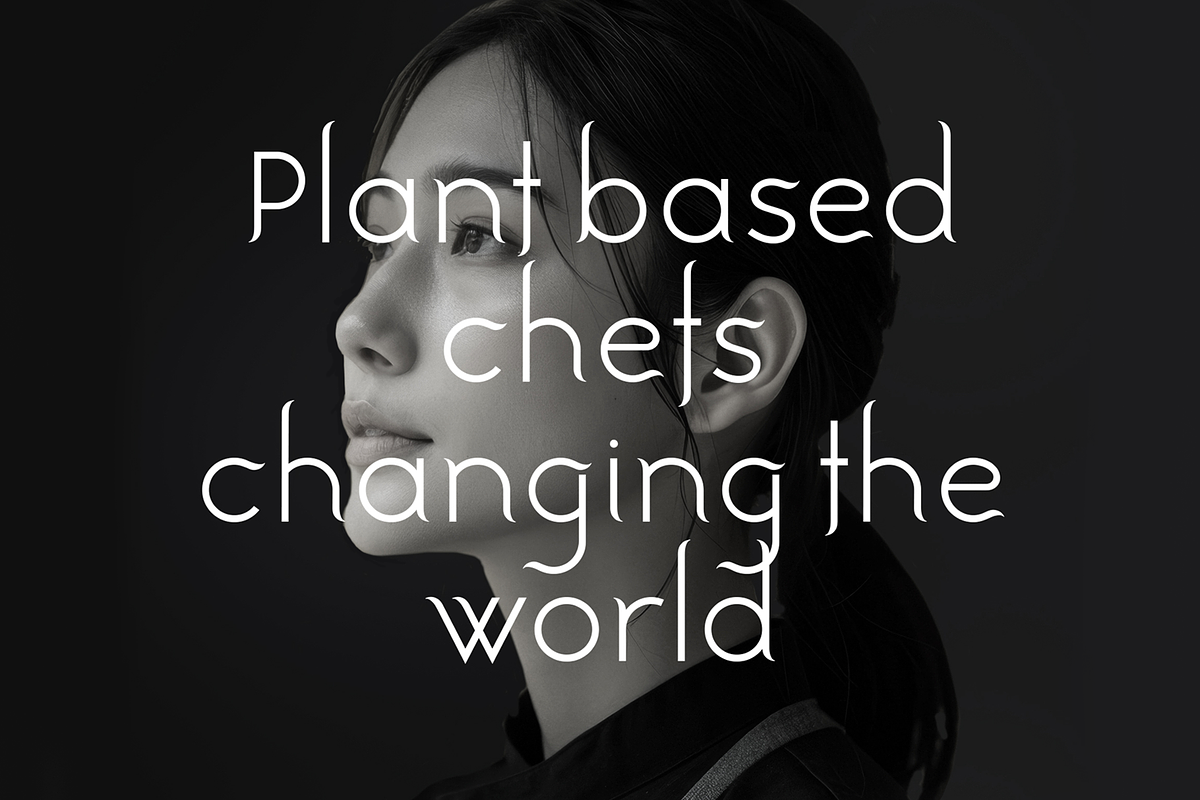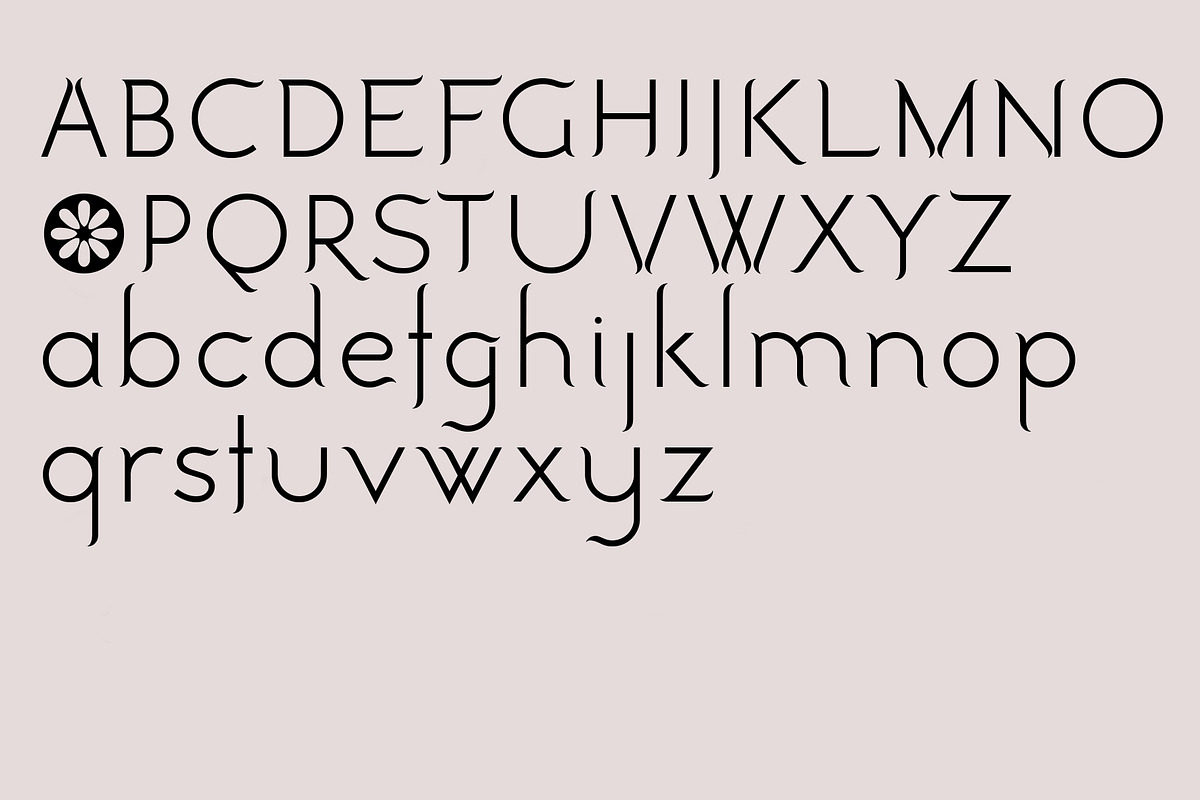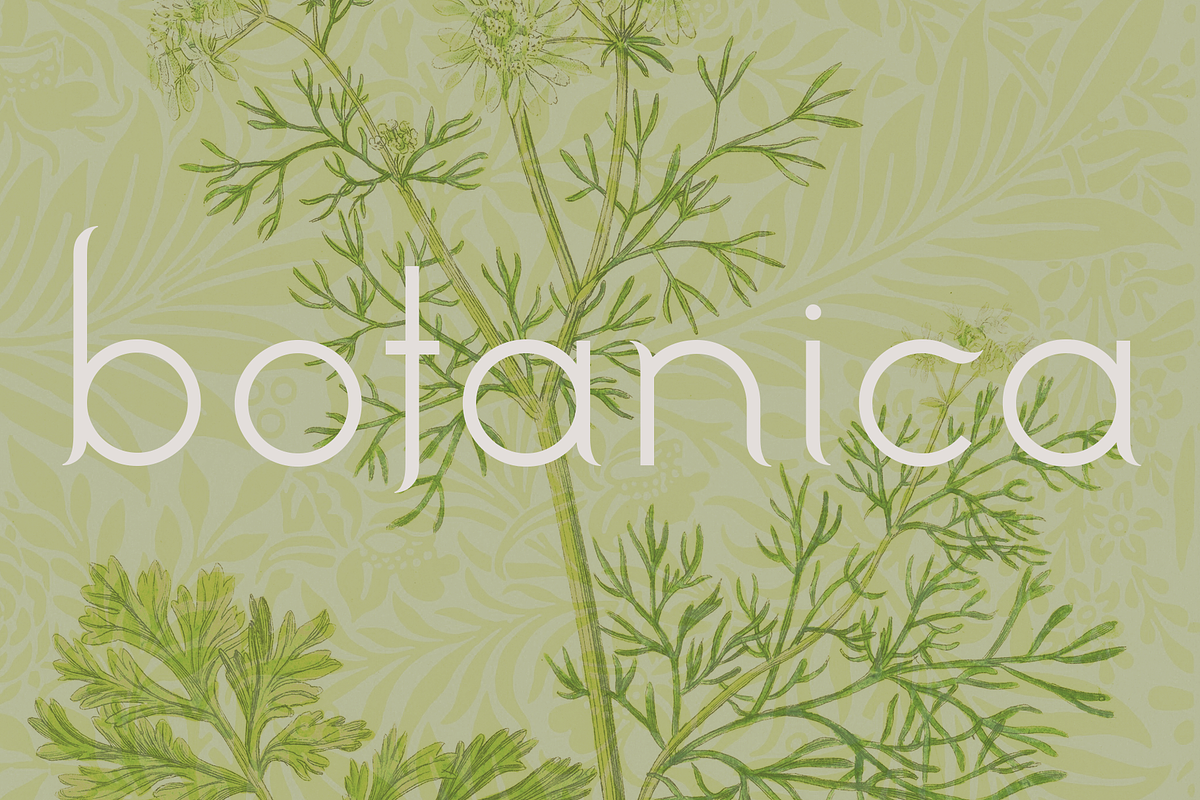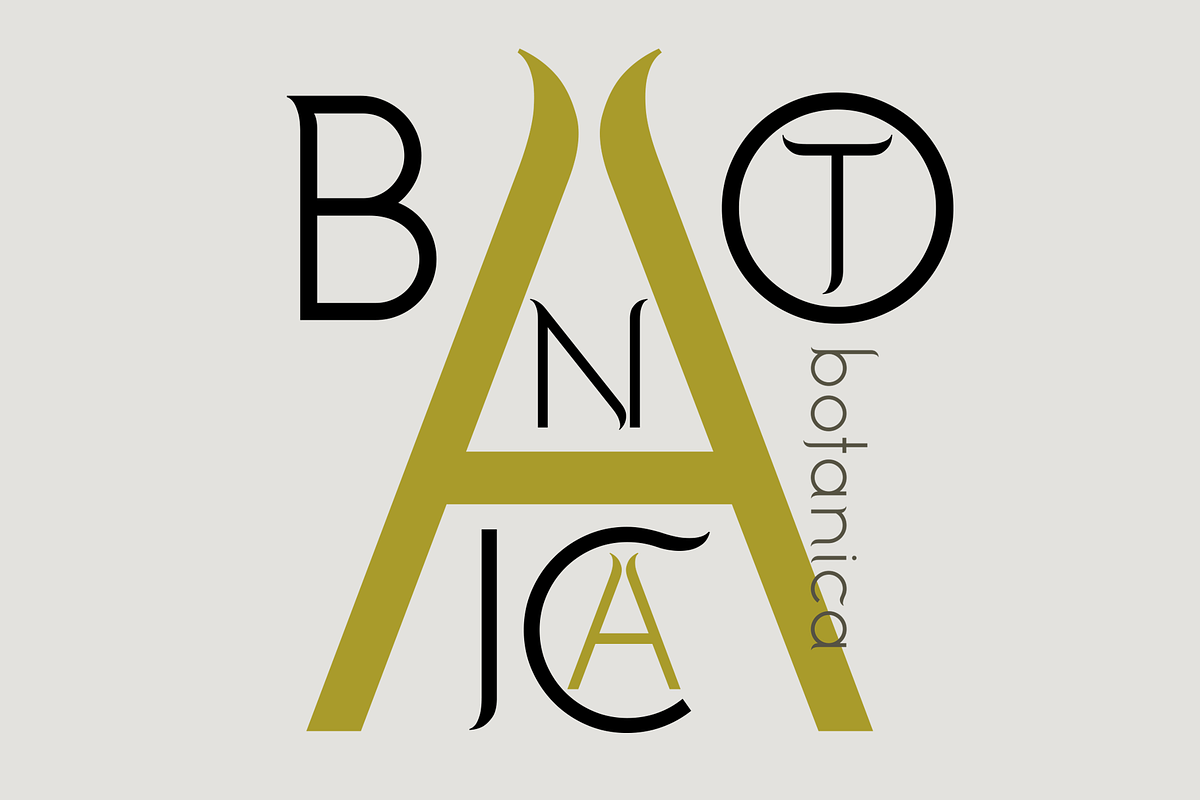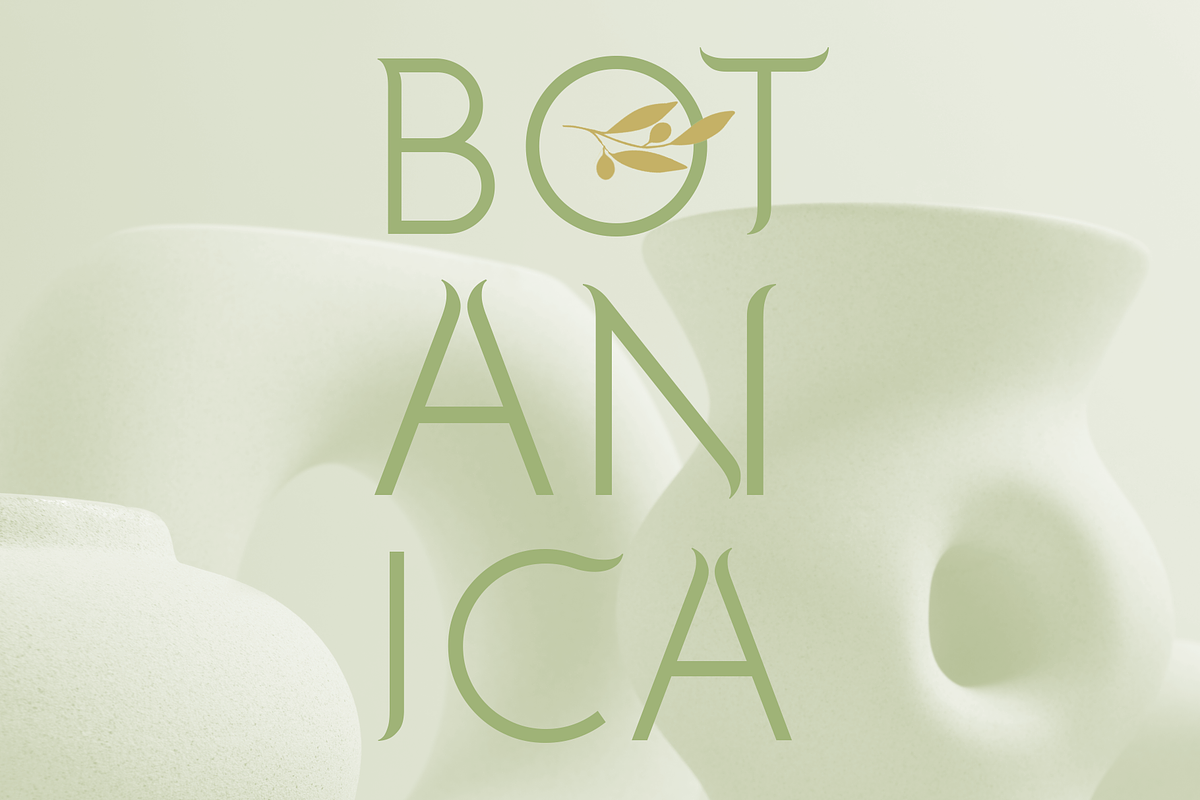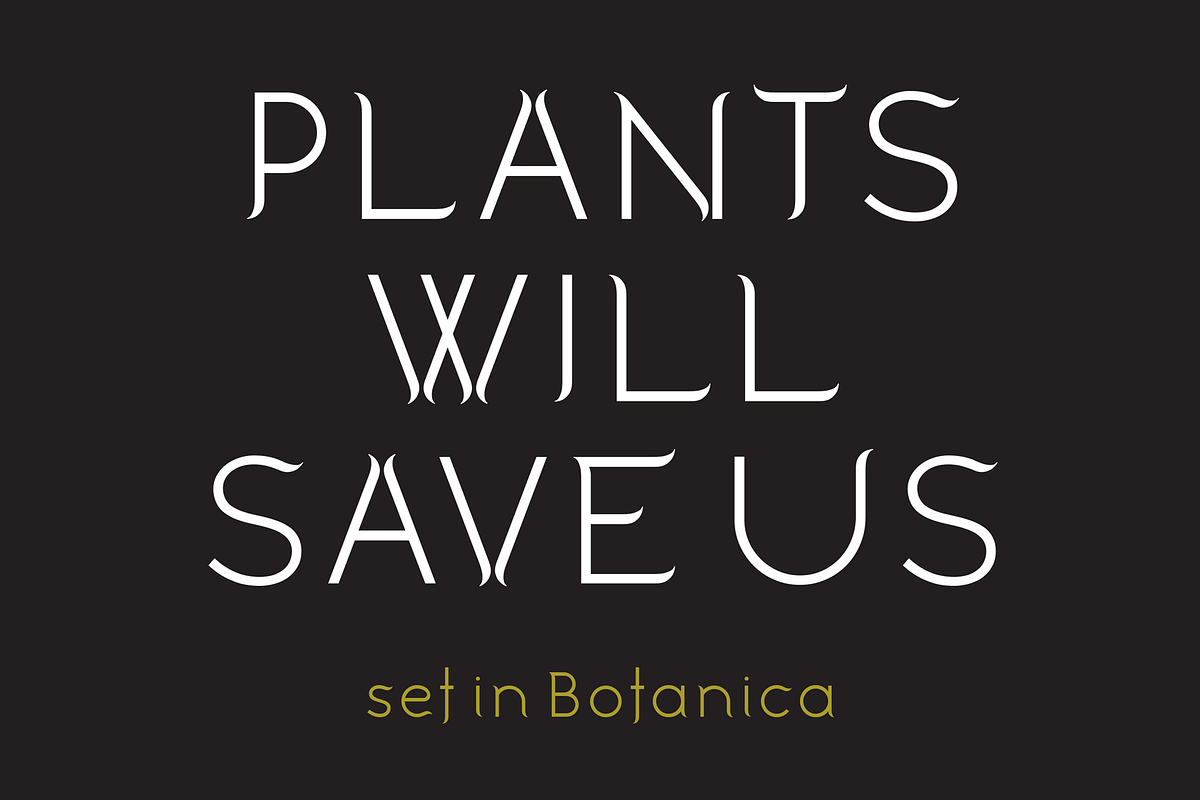
Botanica. Stylish modern and classic
Botanica is a beautiful, yet modern font for our times. Starting with classic sans serif proportions I have given Botanica my trademark design touch - adding subtle ‘serif-like’ touches to let the font look and feel contemporary with clean lines, yet also classic and timeless.
I do this because as a designer I know there is a void of fusion fonts that are modern yet stylish and classic, and that uniqueness brings a versatility to the font that allows it be used across more types of design projects.
In print I use Botanica in packaging designs, in F&B, in boutique hotel branding, modern wedding designs, signage and on book covers. And online in websites, blogs, social media posts and Youtube creator post titles. Botanica is a must-have addition to all professional designs’ font libraries. It comes in 2 weights, and supports many European languages.
Please note, there is a decorative flower option for the capital 'O', accessed via typing 'Thorn' (alt+T).